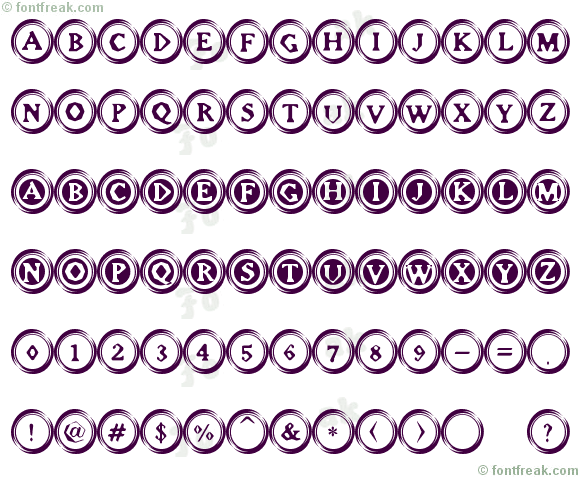
Elevator Buttons
Elevator Buttons Two
About Elevator Buttons
Elevator Buttons by Omega Font Labs is a decorative typeface that draws inspiration from the iconic design of elevator buttons, capturing a unique blend of functionality and artistry. Released as freeware in 1997, this font features circular forms with bold, rounded letterforms that evoke a sense of playfulness and modernity. The stroke weight is consistent throughout, providing a uniform appearance, while the slight contrast in the outer edges creates a dynamic visual effect. The letters are encased in a circular outline, reminiscent of buttons, and boast a slight shadow, enhancing their three-dimensional look.
This font is particularly well-suited for a variety of creative applications. Graphic designers can utilize Elevator Buttons for vibrant signage, giving a lively touch to event promotions or wayfinding systems. Its playful aesthetic makes it an excellent choice for children's book covers, where engaging visuals are essential. Additionally, small business owners can adopt this font for menus or promotional materials, creating an inviting atmosphere that attracts customers. Content creators aiming for a modern, eye-catching design in social media graphics will also find this font to be an appealing option.
Targeting graphic designers, small business owners, and content creators, Elevator Buttons combines functionality with creative flair, making it a versatile addition to any designer's toolkit. The free availability of this font encourages exploration and innovation, allowing users to enhance their projects without financial constraints.